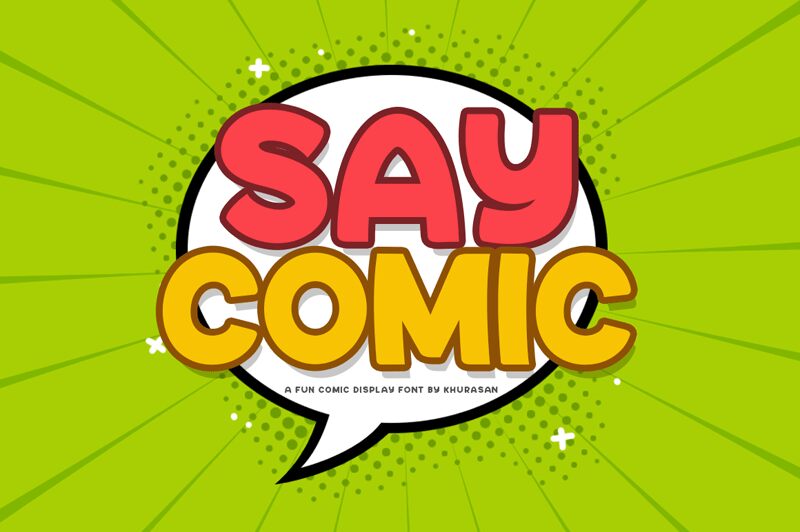
Say Comic
Say Comic, designed by Khurasan, is a bold and playful display font that's perfect for projects aimed at capturing attention and evoking a sense of humor. Its comic style is well-suited for anything from posters to comic books, while its semi-expanded width makes it an ideal choice for headlines and titles. Say Comic's bold weight ensures that your message won't be ignored, making it a great choice for advertising campaigns or social media graphics. With its fun-loving personality and eye-catching design, Say Comic is the perfect choice for any project that wants to stand out from the crowd.